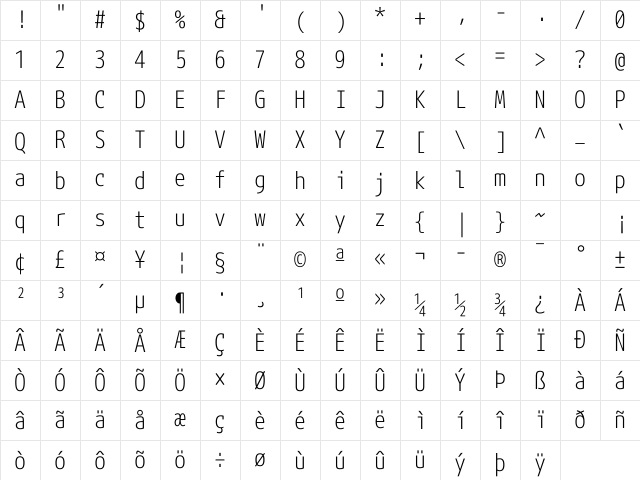
M+ 1mn light is a composed and adaptable typeface that performs quietly and consistently across a wide range of design contexts. Its slender proportions lend an understated elegance to any composition.